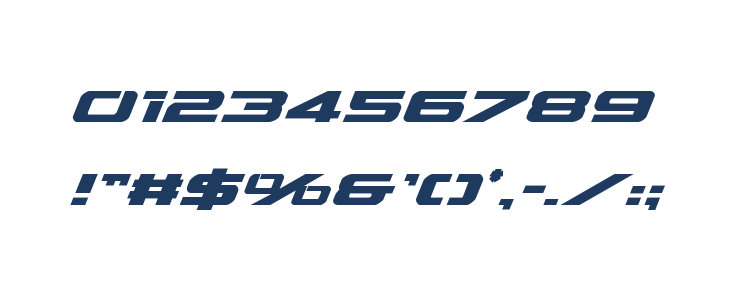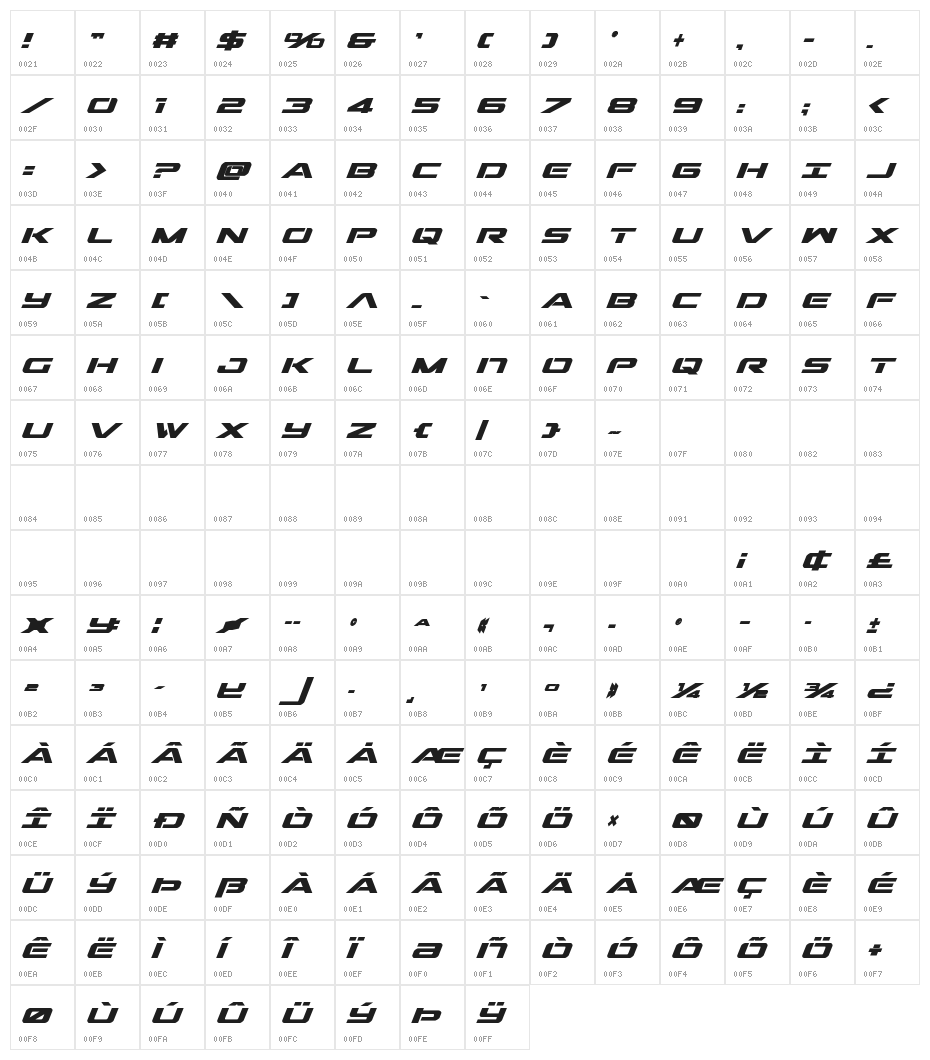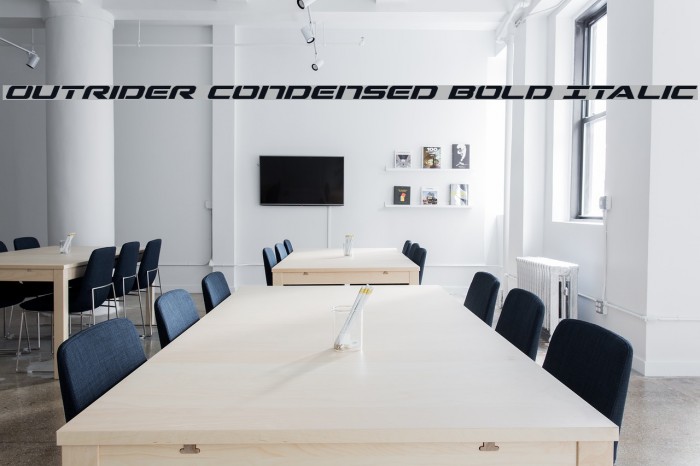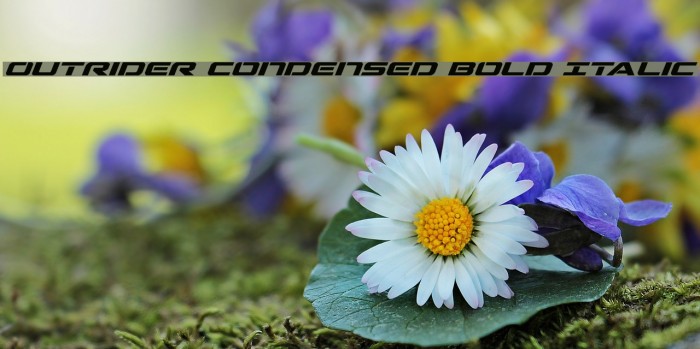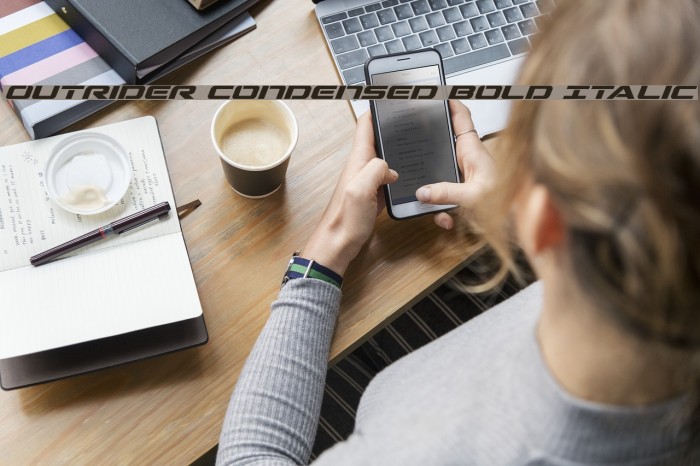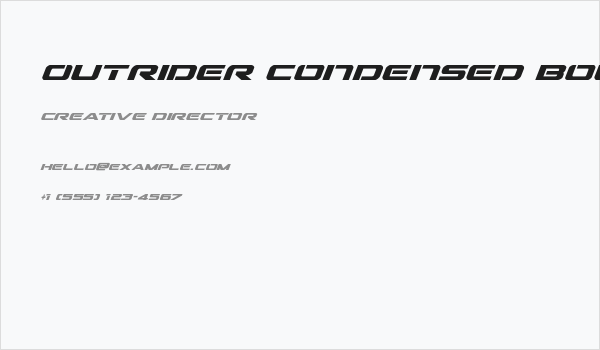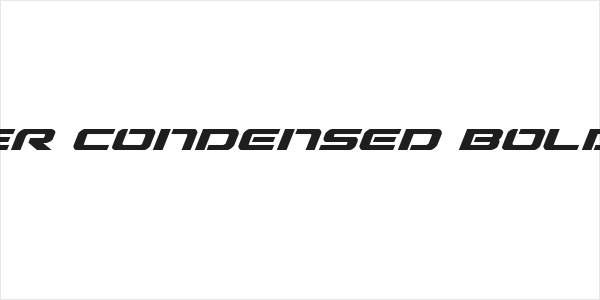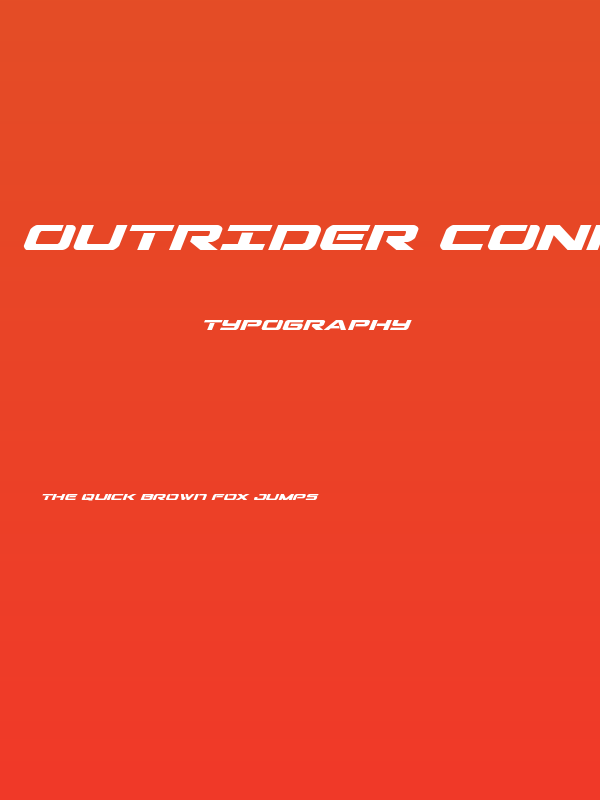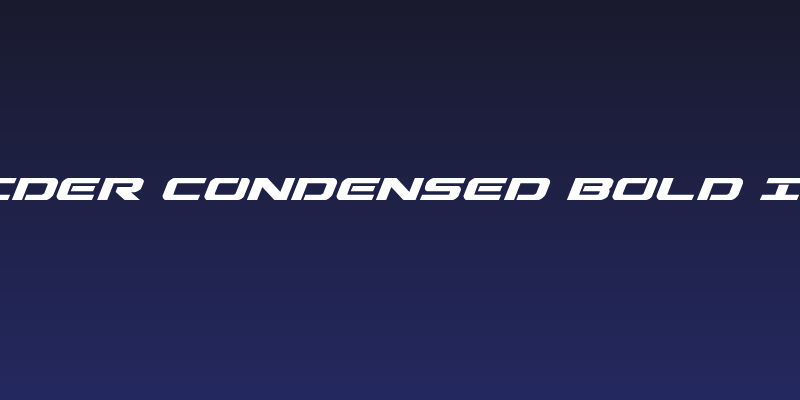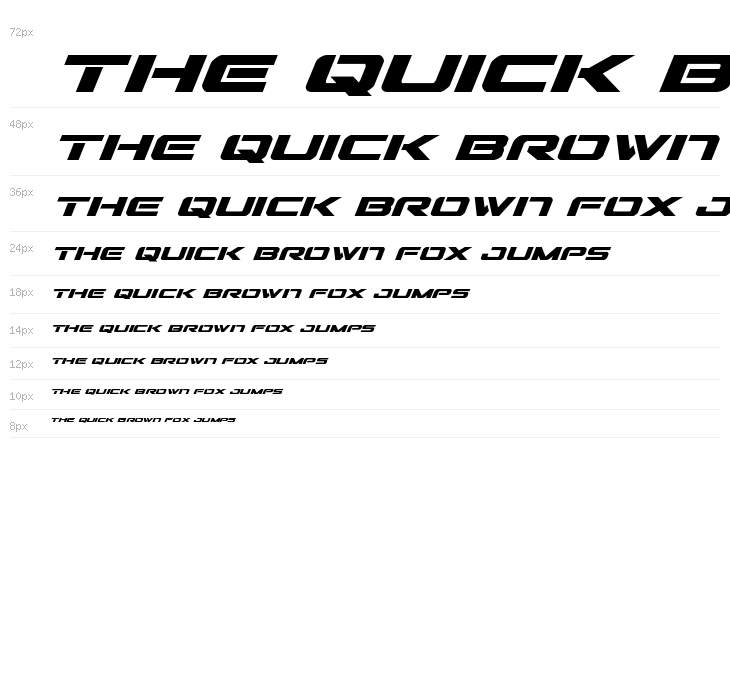
Outrider Condensed Bold Italic Font
Outrider Condensed Bold Italic Description
This font features a bold and italicized style with a condensed width, giving it a dynamic and modern appearance. The characters are sharply angled, creating a sense of motion and speed. The uppercase and lowercase letters maintain a consistent style, with a slight slant that enhances the italic effect. The numerals and special characters are designed to match the overall aesthetic, providing a cohesive look across all glyphs. The bold weight ensures strong visibility, making it suitable for attention-grabbing designs.
| Proposed Projects | Ideal for sports branding, automotive designs, futuristic themes, and dynamic advertising materials. |